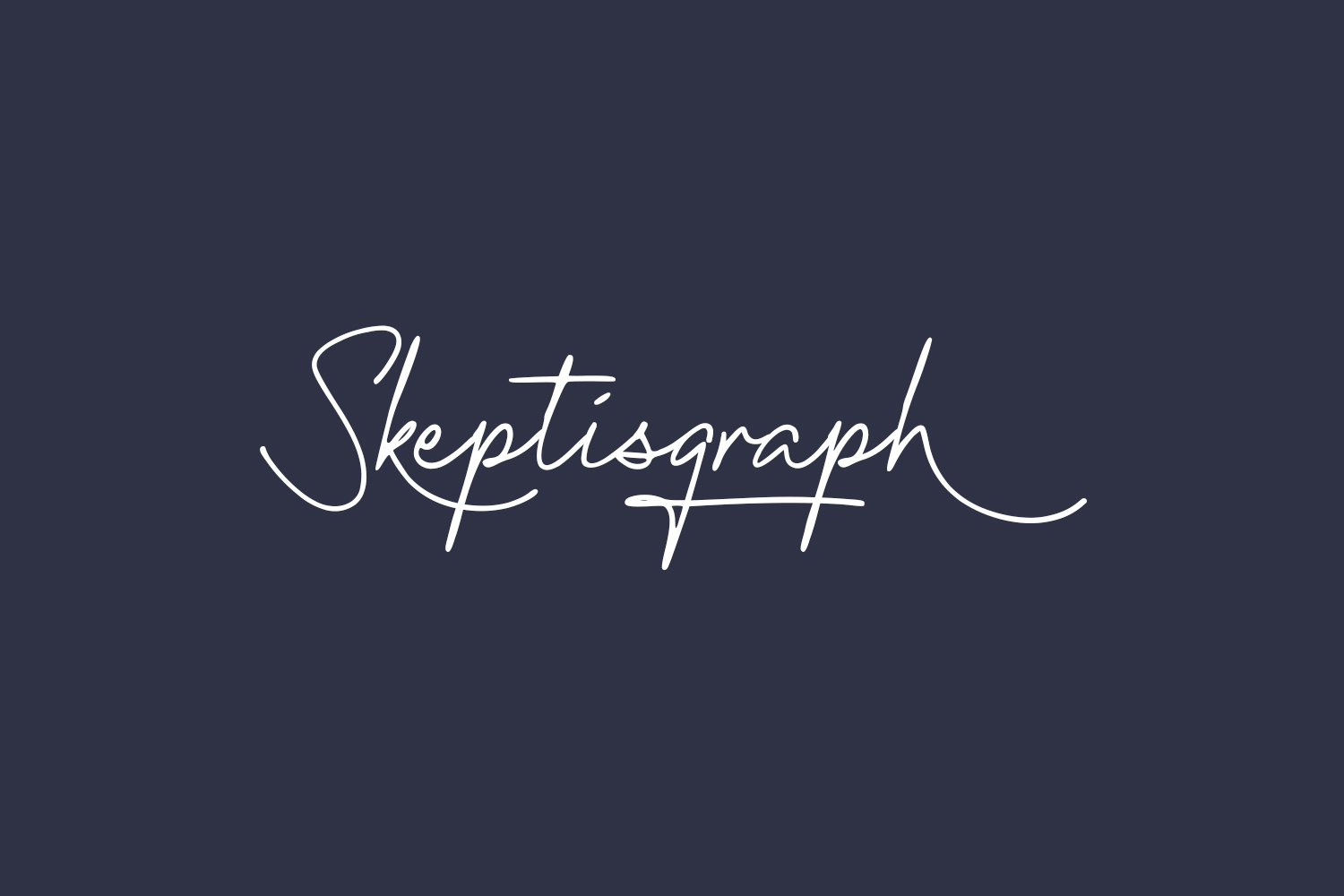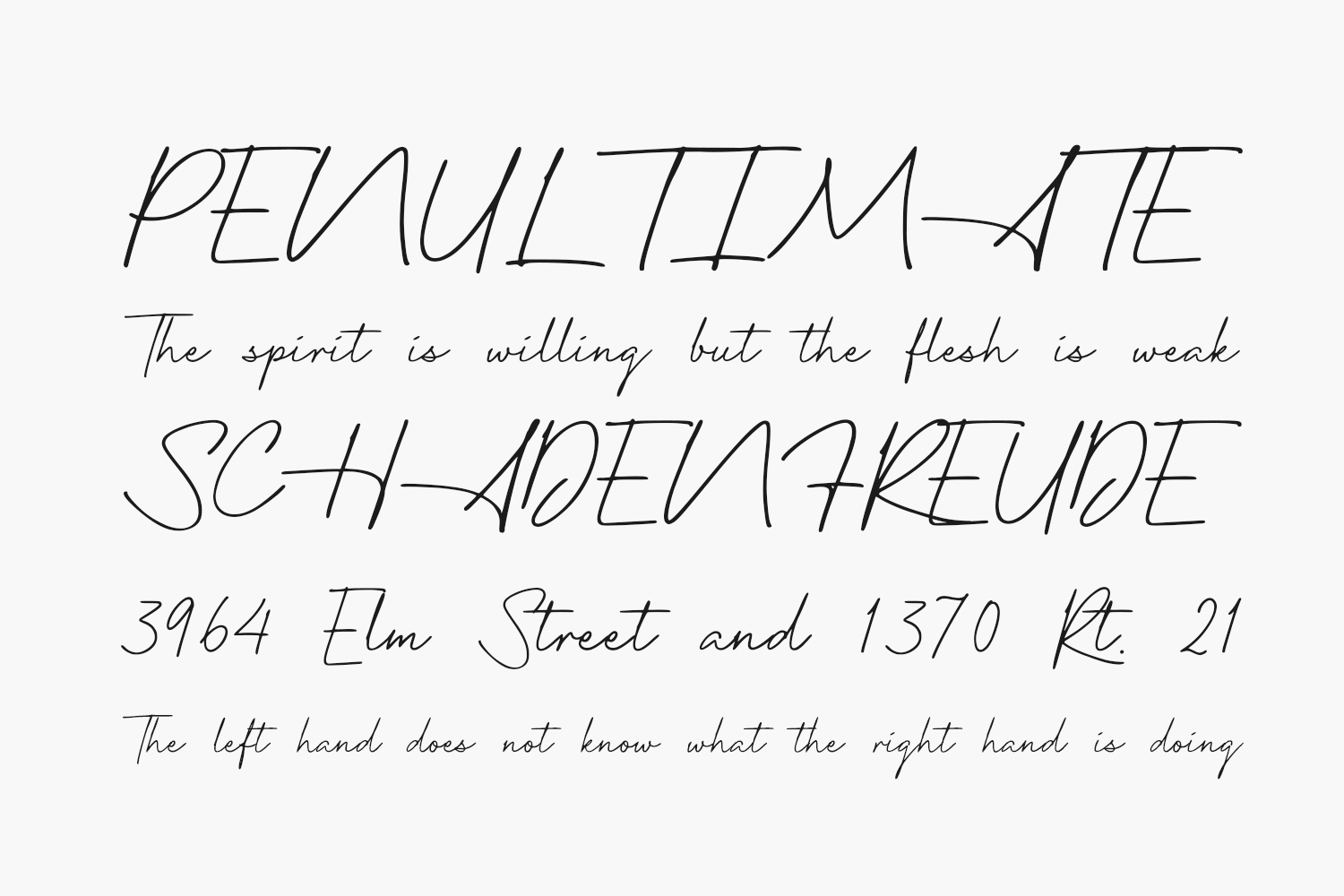
Skeptisgraph Free Font is a beautiful and light handwritten font with a unique feel and a stunning impact. It will add a luxury spark to any design project that you wish to create. Skeptisgraph Free Font is free for personal use only. Please purchase the full version for commercial use.
Designed by Allouse Studio